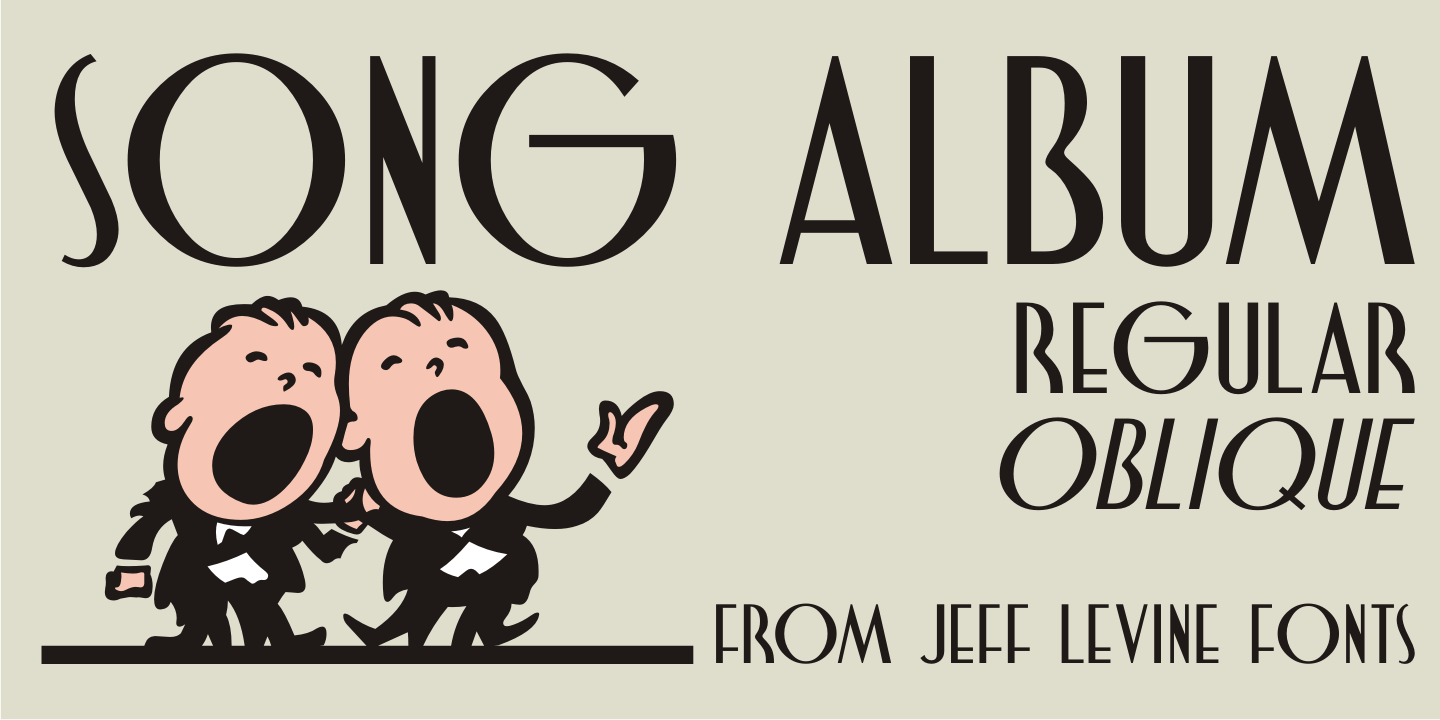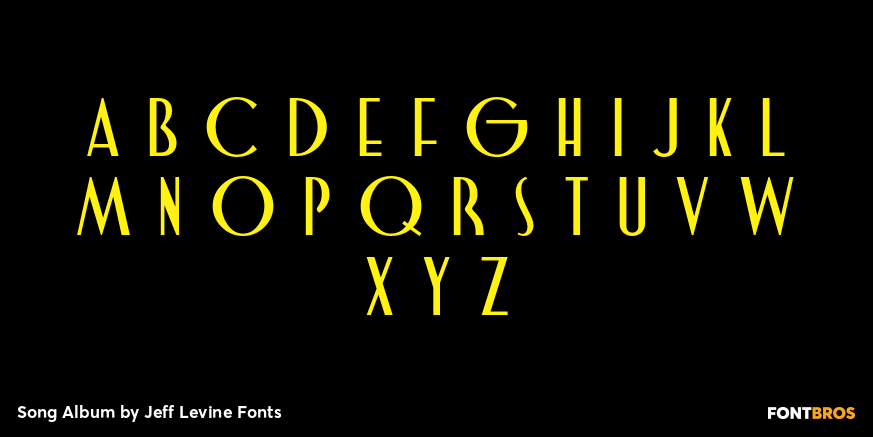
Song Album
In the days when sheet music was as popular as phonograph records for home entertainment, a song album was a folio of collected works. The hand-lettering on the 1940s-era cover for 'The Sigmund Romberg Song Album, Book II' served as the model for Song Album JNL. Romberg was a noted composer of Broadway show tunes.